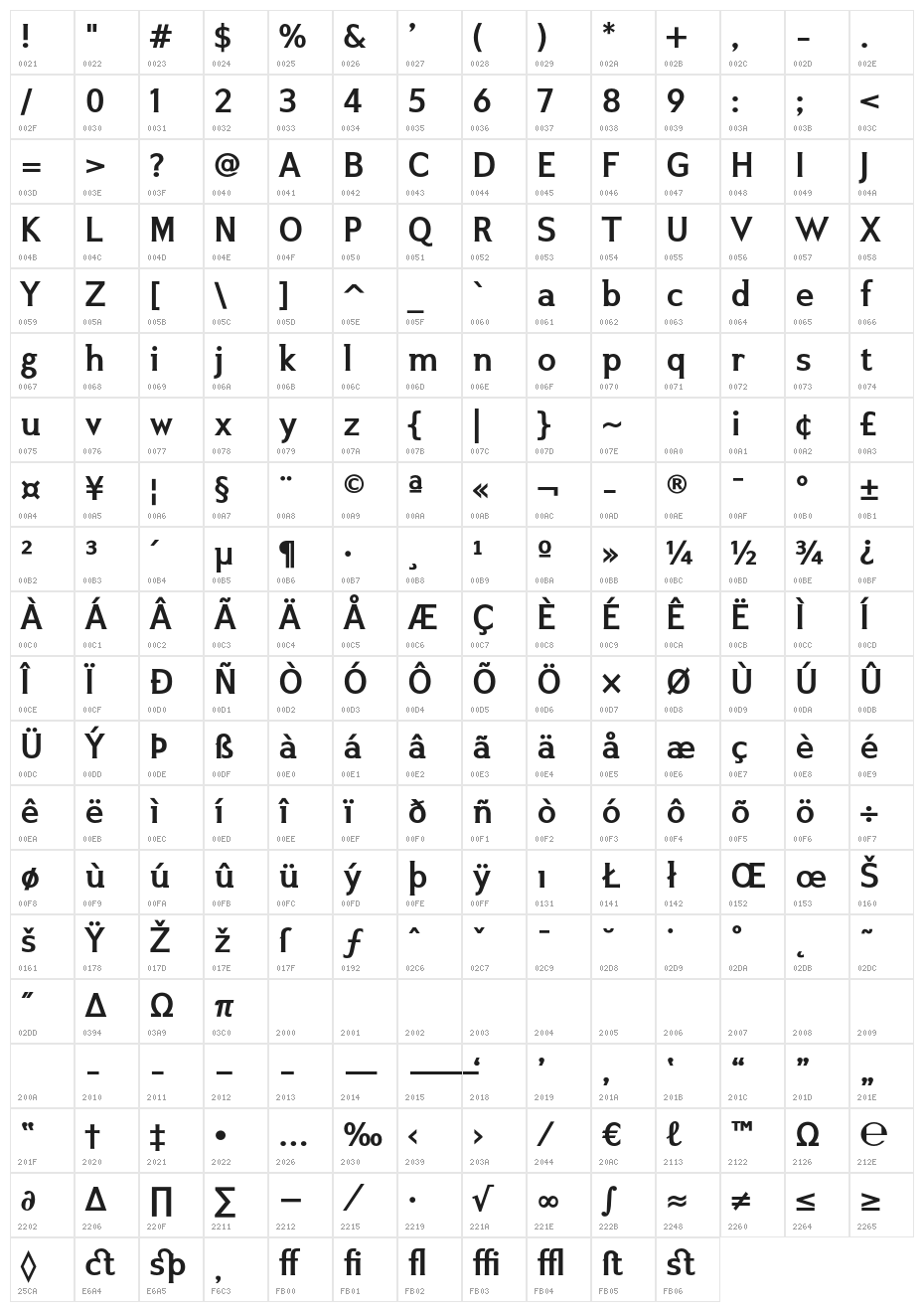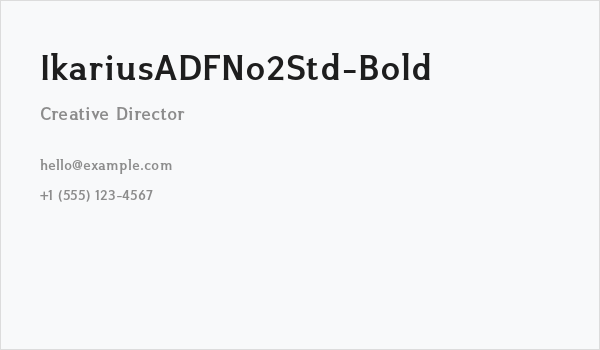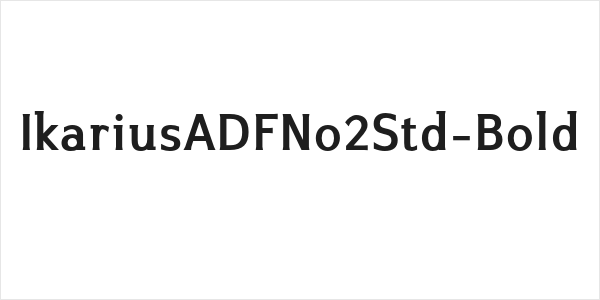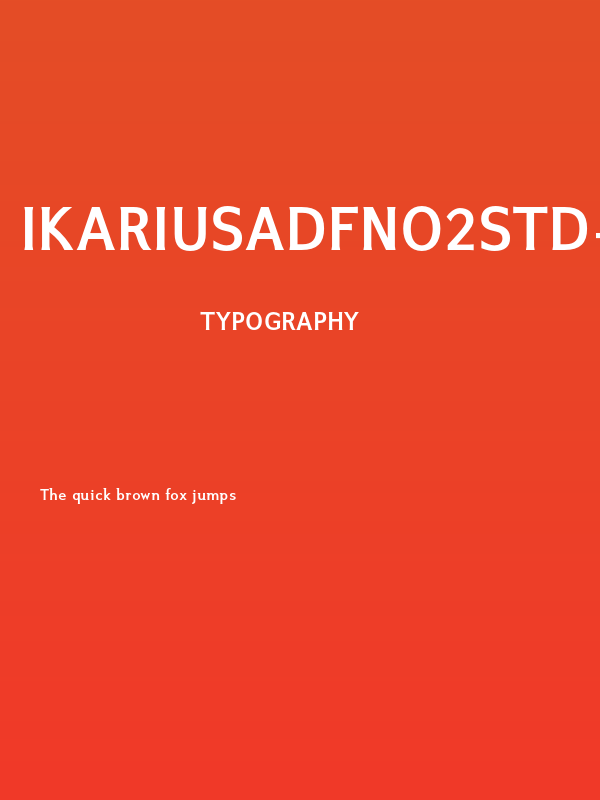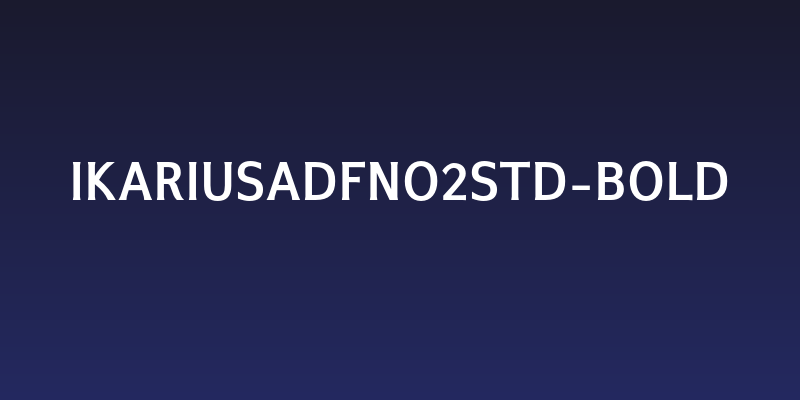
IkariusADFNo2Std-Bold Font
IkariusADFNo2Std-Bold Description
This font exhibits a clean and modern sans-serif style with bold, uniform strokes that provide a strong visual impact. The characters are well-proportioned, featuring a balanced mix of straight lines and subtle curves, which contribute to its legibility and versatility. The uppercase letters are slightly taller than the lowercase, maintaining a consistent weight throughout. The numerals are clear and distinct, matching the overall boldness of the alphabet. Special characters are well-integrated, ensuring a cohesive appearance across different text elements.
Use CaseHeadlines, Logos, Branding
Proposed ProjectsIdeal for branding, advertising, headlines, and digital media where a strong, modern presence is required.